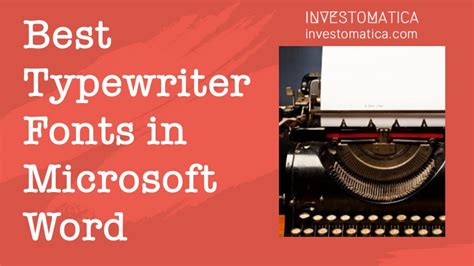
Microsoft Word Font Typewriter. Web best typewriter fonts in microsoft word 1. Consolas is a great font that imitates what typewriters can produce.
Web best typewriter fonts in microsoft word 1. Consolas is a great font that imitates what typewriters can produce.